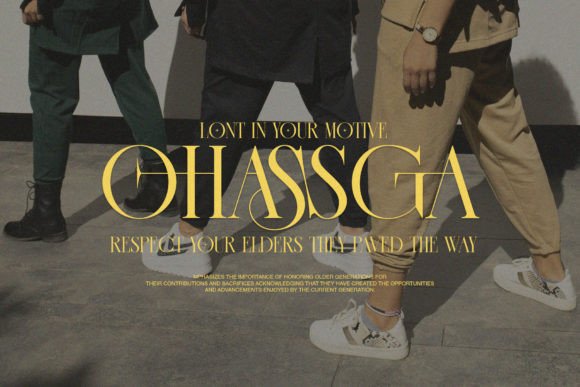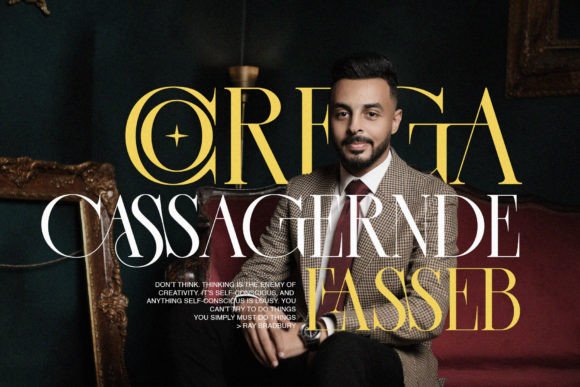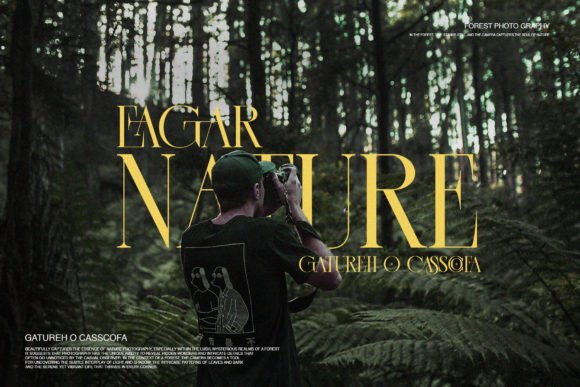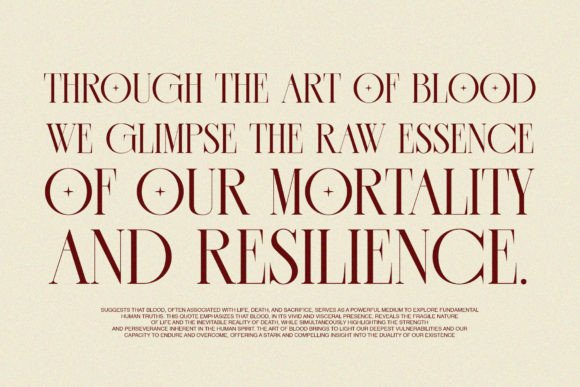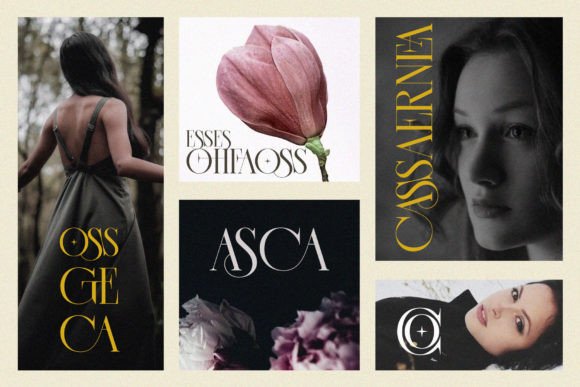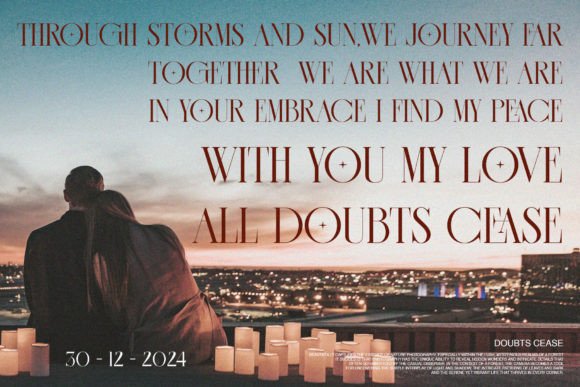
A New Era in Typography: Unlocking the Power of Casseros Masscottes Font
Have you ever found yourself stuck in a creative rut, staring blankly at a blank page, desperate for that one spark that ignites your imagination? For designers, this feeling is all too familiar. But what if I told you that there’s a font that can change all that? Say hello to Casseros Masscottes Font, a Ligature Serif Typeface that’s about to revolutionize the way you approach your next project.
Designed with versatility in mind, Casseros Masscottes Font is the perfect tool for crafting templates, brochures, videos, and more. Its elegant, minimalist aesthetic makes it a valuable asset for designers looking to elevate their brand’s visual identity. Whether you’re working on a logo, invitation, or layout design, this font is sure to impress. With its wide range of applications, Casseros Masscottes Font is an essential addition to any designer’s toolkit.
Casseros Masscottes Font Key Features
- Font Family: Casseros Masscottes
- Unique Characteristics: This font features a unique blend of modern and traditional elements, with intricate details and ornate flourishes, making it ideal for luxury and high-end branding
- Font Weight: Available in 6 weights, from Light to Black, allowing for a high degree of customization and flexibility
Casseros Masscottes Font Review
Casseros Masscottes is a unique and eye-catching font that can be a great addition to your design projects. Here’s what works well:
- ✨ Unique and playful character set: The font features a wide range of quirky characters that can add a fun touch to your designs.
- ✨ High level of customization: With a variety of styles and weights available, you can easily customize the font to fit your design needs.
- ✨ Easy to read: Despite its playful nature, the font is still easy to read and understand, making it a great choice for body text.
- ⚠️ Limited legibility at small sizes: While the font is easy to read at larger sizes, it can become difficult to read at smaller sizes, which may limit its use in certain contexts.
- ⚠️ Not suitable for formal designs: The font’s playful nature may not be suitable for formal or professional designs, where a more traditional font may be preferred.
Overall, I think Casseros Masscottes is a great font for designers looking to add a touch of whimsy to their projects. While it may not be suitable for every design, it’s a great choice for projects that require a playful and eye-catching font.
Casseros Masscottes Font: A Practical Application Guide
To get the most out of the Casseros Masscottes Font:
- Use it for titles and headings to add a touch of elegance.
- Pair it with other fonts to create a unique and eye-catching combination.
The Casseros Masscottes Font is perfect for:
Alternatives to Casseros Masscottes Font
Great Vibes is a beautiful, elegant script font that is perfect for creating a luxurious and sophisticated look. It features a flowing, handwritten feel that is ideal for use in branding, invitations, and other high-end designs. Compared to Casseros Masscottes, Great Vibes has a more refined and polished look, making it a great choice for formal designs.
Alex Brush is a elegant, handwritten script font that is perfect for creating a personal and creative look. It features a flowing, brush-like feel that is ideal for use in branding, packaging, and other designs where a touch of personality is needed. Compared to Casseros Masscottes, Alex Brush has a more rustic and organic feel, making it a great choice for designs that require a unique and handmade look.
Carolyna Pro is a modern, elegant script font that is perfect for creating a sophisticated and stylish look. It features a flowing, handwritten feel that is ideal for use in branding, invitations, and other high-end designs. Compared to Casseros Masscottes, Carolyna Pro has a more modern and sleek look, making it a great choice for designs that require a contemporary feel.